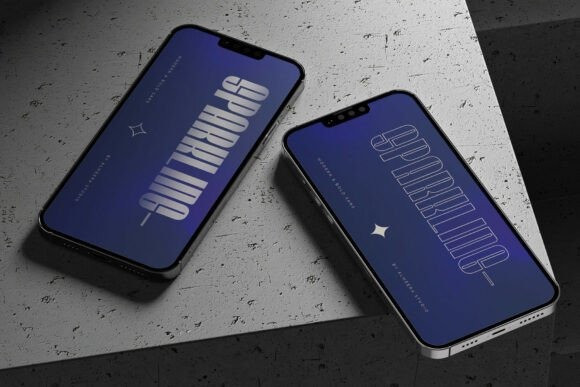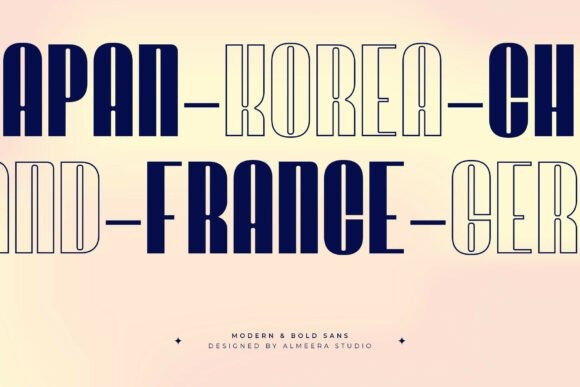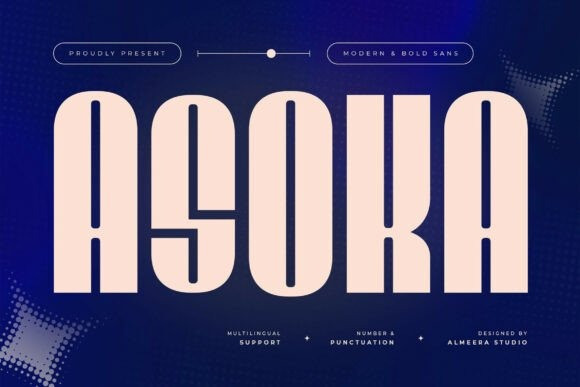
Asoka Sans Font
Asoka Sans Font is a modern, bold sans font that brings strength and clarity to your designs. With its tall proportions and geometric structure, Asoka is perfect for impactful headlines, branding, posters, packaging, and digital campaigns. Its contemporary style blends minimalism with authority, ensuring your message always captures attention.